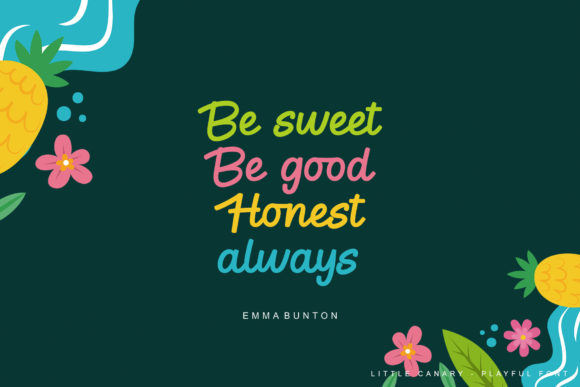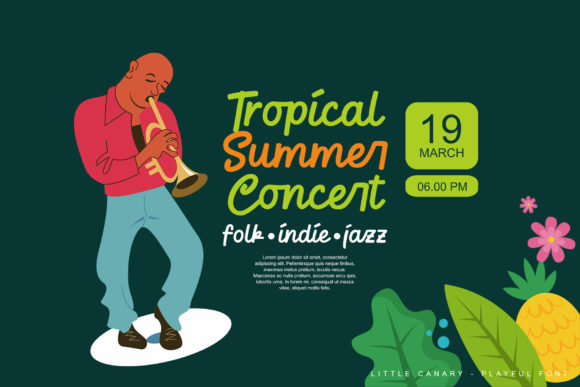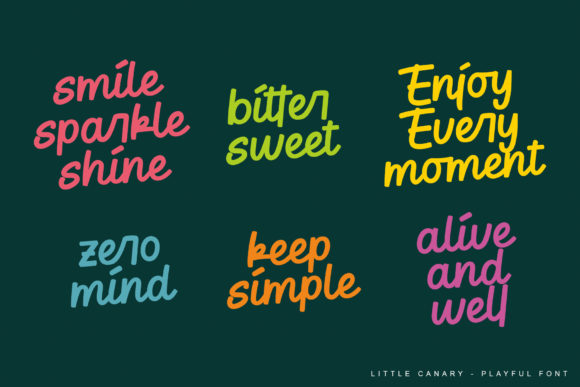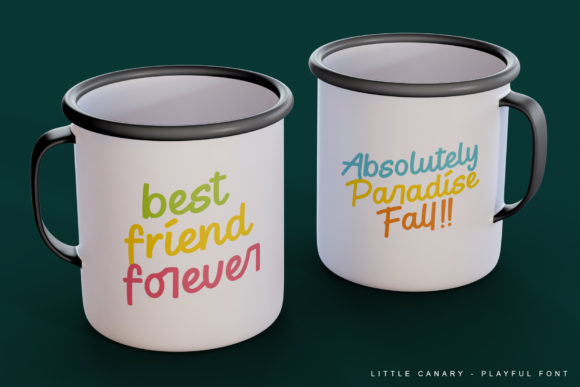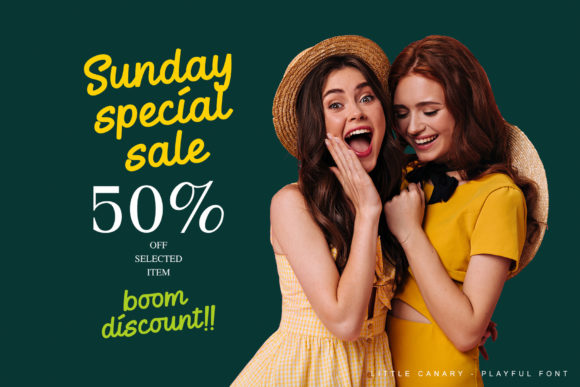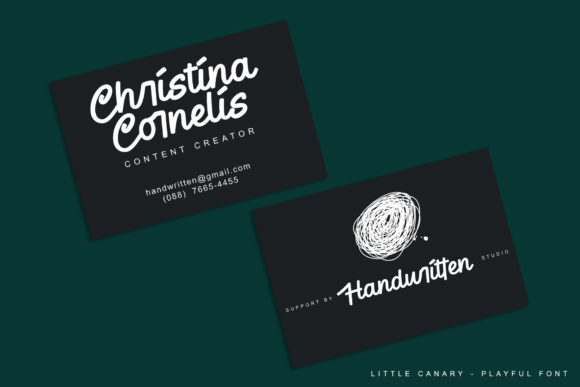
Introduction to Little Canary Font
Have you ever been working on a creative project, pouring your heart and soul into it, only to feel like something’s missing? That’s exactly what happened to me when I stumbled upon the Little Canary Font. It was like adding a splash of color to a blank canvas, instantly elevating my design to the next level.
With its delicate, elegant, and flowing handwritten style, the Little Canary Font is the perfect addition to any design. Its beautiful and well-balanced characters make it a versatile choice for a wide range of creative projects, from wedding invitations to digital art. Whether you’re looking for a high-quality font for your next design project or just need a reliable design resource, the Little Canary Font is an excellent choice.
Key Features of Little Canary Font
- Unique, hand-drawn design with a touch of whimsy, perfect for creative projects.
- Features a clean and elegant design with a subtle, dreamy quality, suitable for a wide range of creative applications.
Honest Review: Little Canary Font
I recently had the chance to experiment with the Little Canary Font, and I must say it’s a lovely addition to any design project. This free download is perfect for creative projects that require a touch of elegance and sophistication.
Overall, I’m impressed with the Little Canary Font. Its high quality and versatility make it a valuable design resource, and its free download makes it accessible to designers of all levels. With a little practice, I’m sure you’ll find it to be a valuable addition to your design toolkit.
Tips for Getting the Most Out of Little Canary Font
To get the most out of the Little Canary Font, use it in creative projects where a high-quality, transparent font is desired. It’s perfect for layering and customization.
Common Use Cases for Little Canary Font
The Little Canary Font is commonly used in:
1. Graphic design projects.
2. Digital art projects.
3. Branding and marketing materials.
Use the Little Canary Font in conjunction with a simple color scheme and clean lines to create a visually appealing design. You can also add a subtle texture or pattern to give it some depth.
Combine the Little Canary Font with a beautiful image or a stunning background to create a striking contrast and make the quote pop.